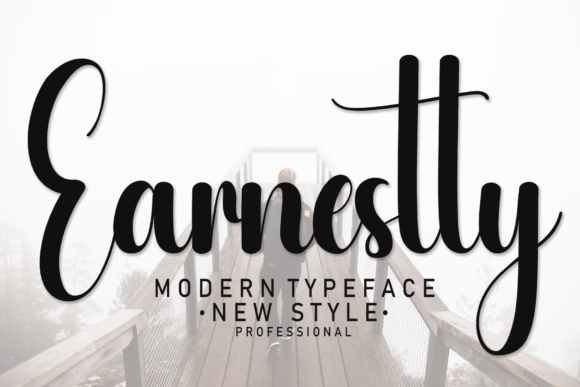
Step into the world of Earnestly, a captivating script font family, crafted to enamor the digital era with its timeless elegance and versatility. Designed by the visionary Roronoa zoro.S.P.D, Earnestly effortlessly captures the allure of handwritten artistry, imbuing your creative visions with a touch of intimacy and authenticity.
With Earnestly, dive into a boundless realm of artistic possibilities, unleashing your creativity in a symphony of styles. Its fluid lines, delicate curves, and distinctive character bring an air of sophistication and charm to any design project. Whether you're weaving words of love, capturing the essence of special occasions, or crafting enchanting branding, Earnestly becomes your faithful companion, transforming the ordinary into the extraordinary.
This font is perfect for wall displays, wedding invitations, social media posts, logos, advertisements, product packaging, product designs, labels, photography, watermarks, invitations, stationery, and any project that requires a personalised touch.
Are you seeking a font that evokes heartfelt emotions, leaving an indelible imprint on your audience? Look no further. Earnestly is your muse, igniting a spark in the hearts of your readers, viewers, and customers. Its undeniable beauty and intricate details add a touch of magic to every word, captivating attention and leaving a lasting impression.
In Earnestly, you'll find more than just a font; it's an extension of your artistic expression, allowing you to communicate beyond words. Its versatility knows no bounds, lending itself effortlessly to a kaleidoscope of design aesthetics. From classic elegance to modern minimalism, Earnestly adapts seamlessly, enriching your creative endeavors with a touch of timeless grace.
Don't let your designs be confined by the ordinary. Ascend to new heights of creativity with Earnestly and unlock the gateway to a world of untold possibilities. Its intuitive flow and effortless charm will guide your imagination, empowering you to craft designs that resonate with your audience, leaving them awestruck and yearning for more.
Take your creative journey to uncharted territories with Earnestly. Embrace its magnetism and let the world witness the power of your artistry. Its enchanting aura will captivate hearts and minds, leaving an enduring legacy of elegance and sophistication in its wake.